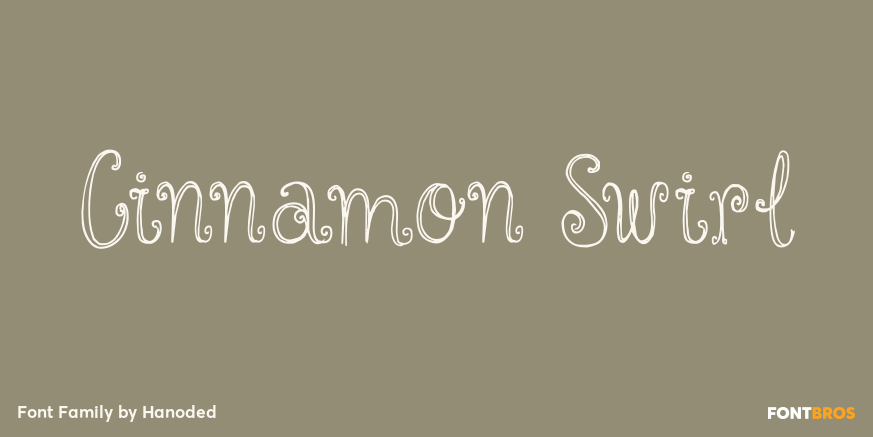
Cinnamon Swirl
About Cinnamon Swirl
Cinnamon scent: check. Swirls: check. Curls: check. Cinnamon Swirl is a very romantic, very \’sugar-and-spice-and-all-things-nice\’ kinda font. It would look great on book covers, slumber party posters and postcards. The Swirl comes with some lovely ligatures…